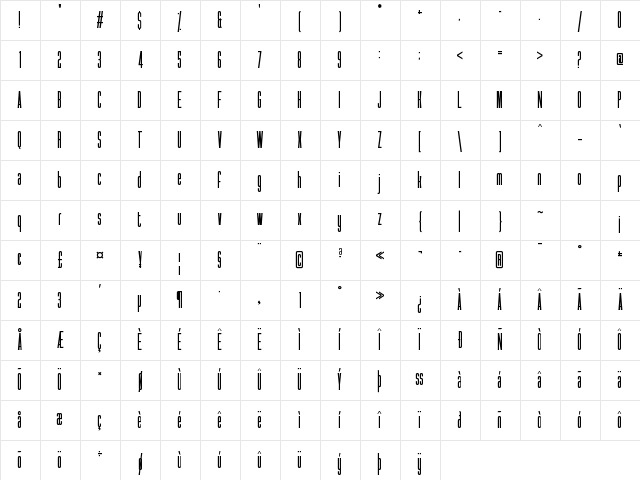
See You At The Movies 2: Revenge & Retribution Regular
Designer: Andrew McCluskey
Design Context for See You At The Movies 2: Revenge & Retribution
See You At The Movies 2: Revenge & Retribution is a composed and adaptable typeface that performs quietly and consistently across a wide range of design contexts.